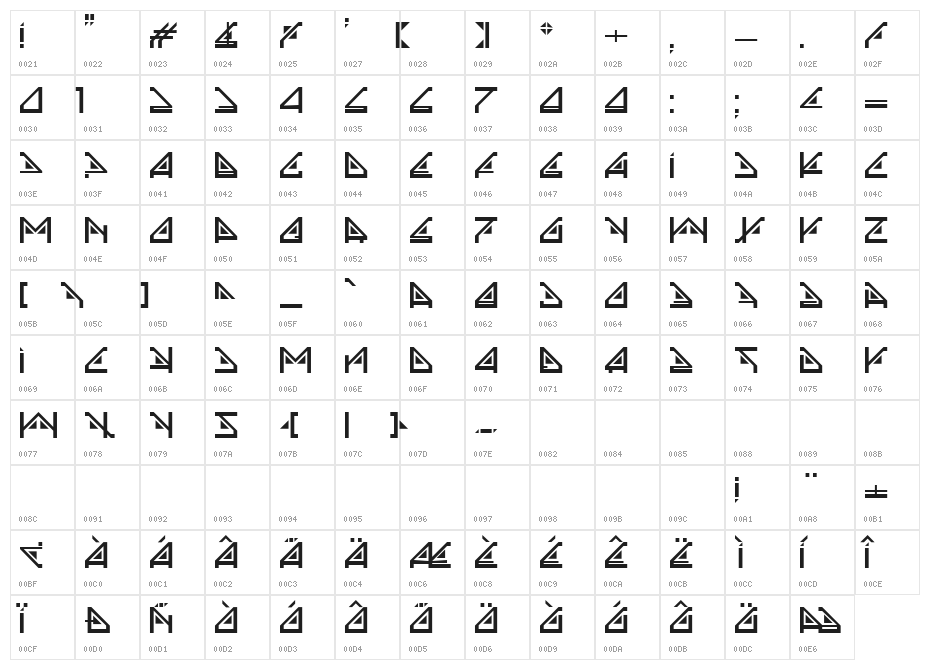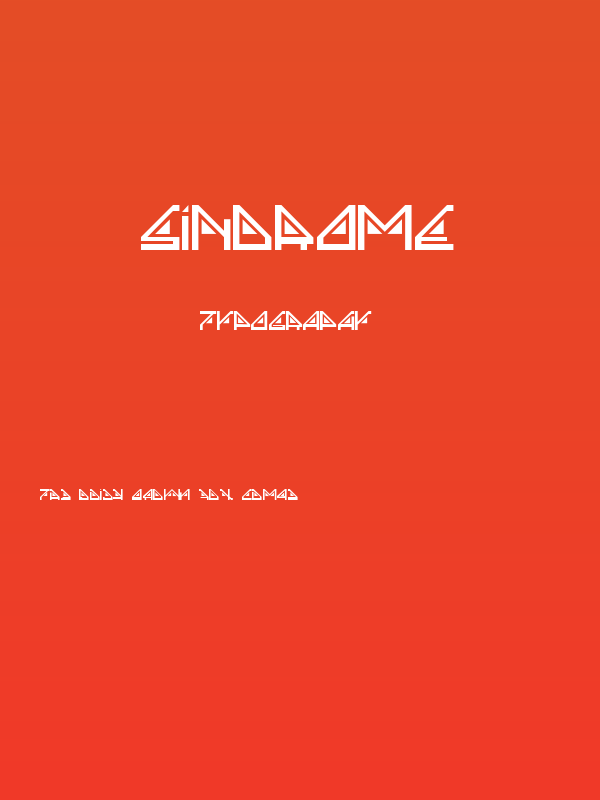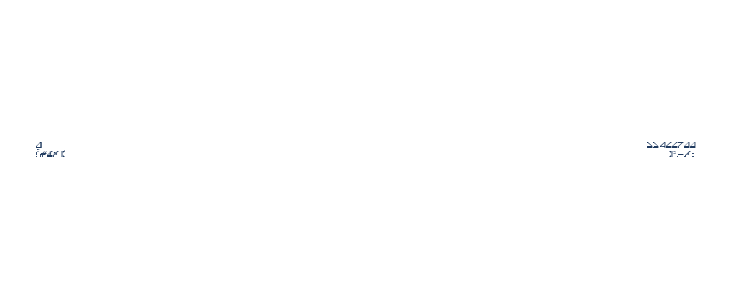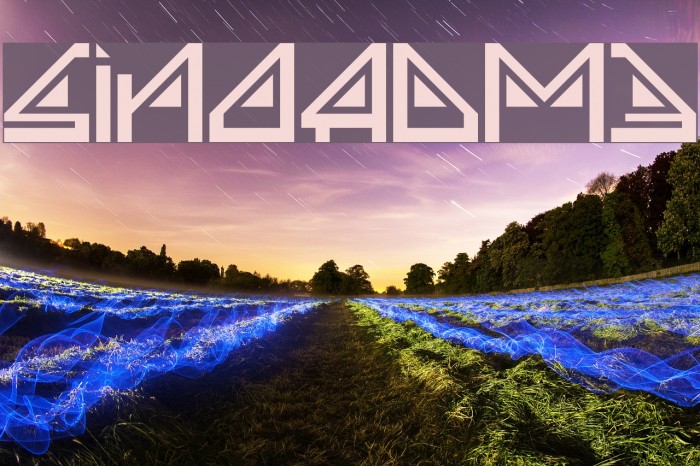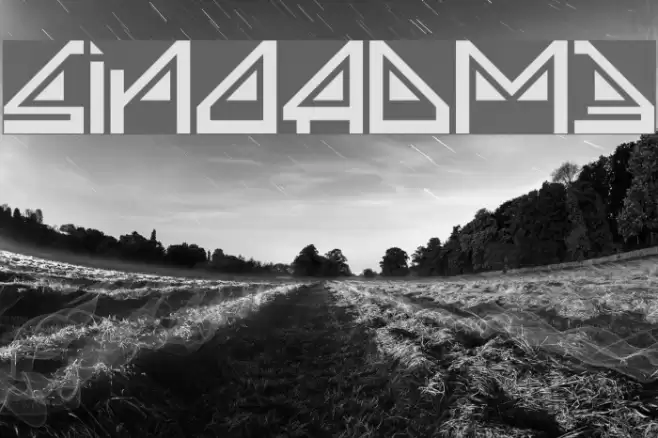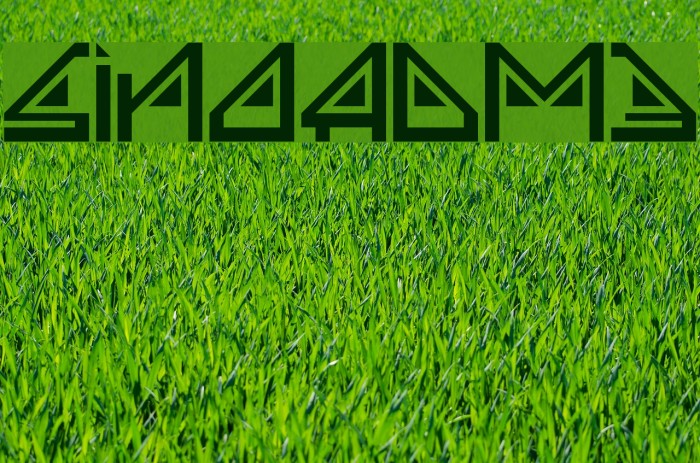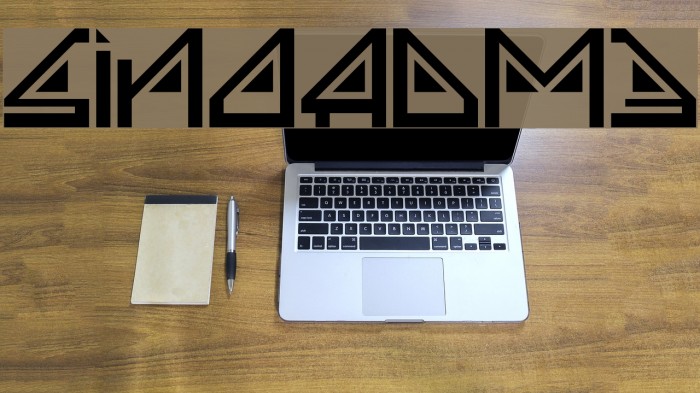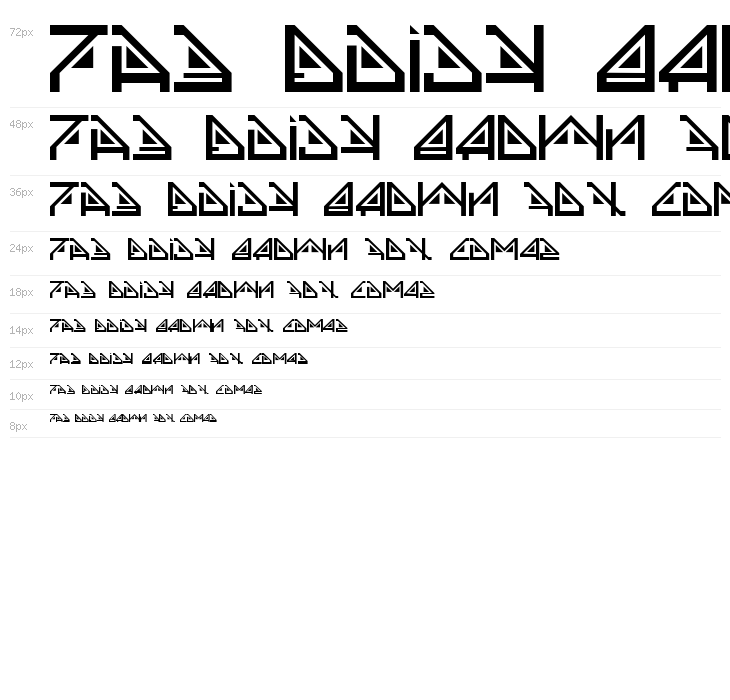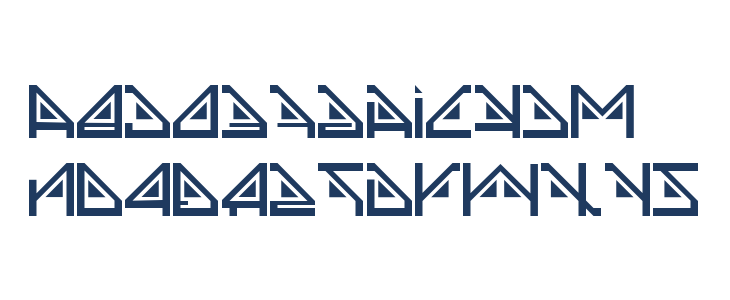
Sindrome Font
Sindrome Description
This font features a highly geometric and angular design, characterized by sharp edges and a futuristic aesthetic. The letters are constructed with bold, straight lines and acute angles, creating a sense of precision and modernity. The uppercase and lowercase letters share a consistent style, with a uniform height and width that gives the font a monospaced appearance. The numbers and special characters are designed to match the angular theme, maintaining the overall cohesive look. This font is ideal for projects that require a modern, tech-inspired feel.
| Overall Style | Futuristic |
| Use Case | Logos, Headlines, Posters |
| Proposed Projects | Ideal for technology branding, sci-fi movie posters, video game titles, and futuristic-themed designs. |